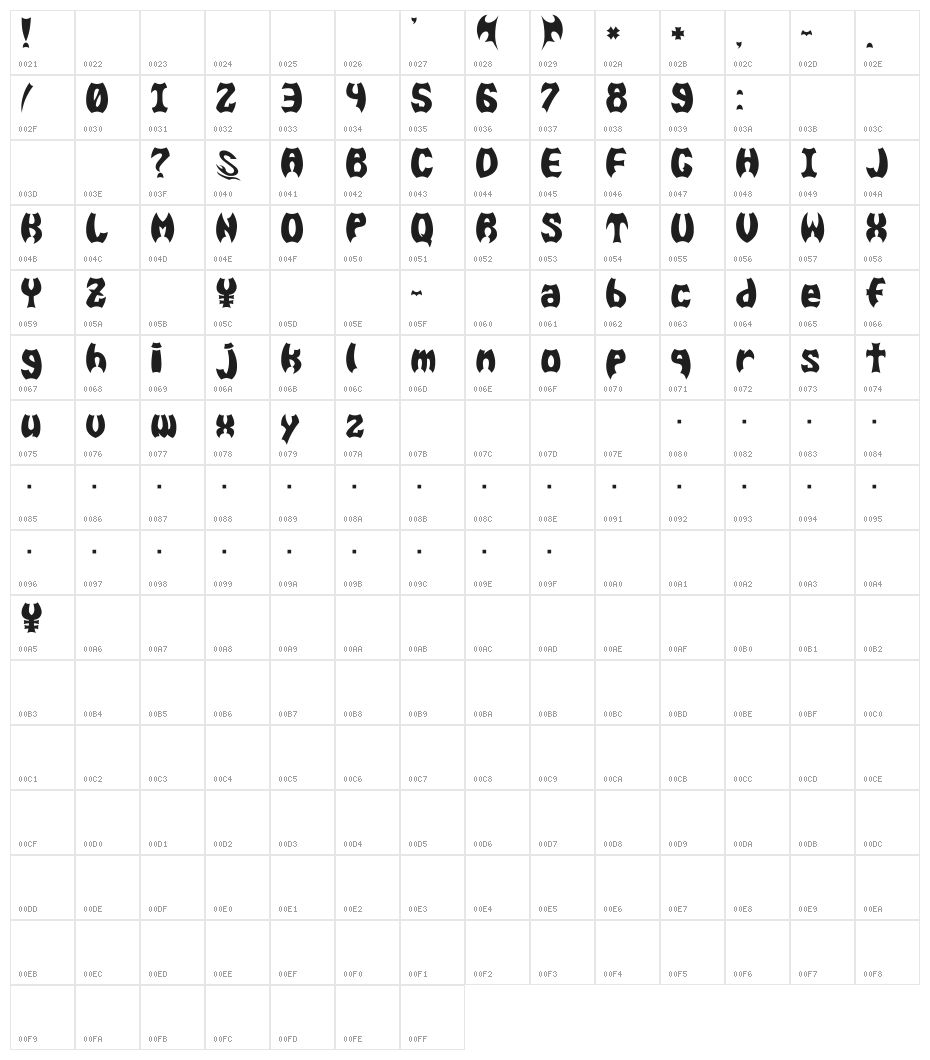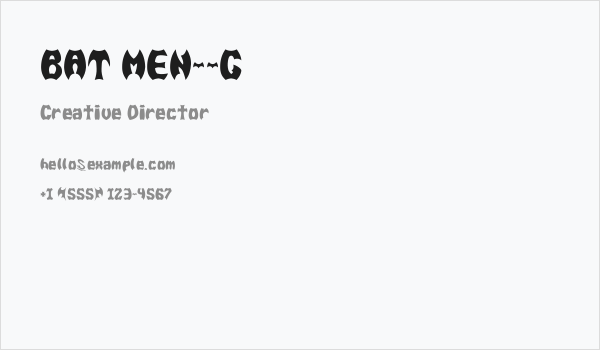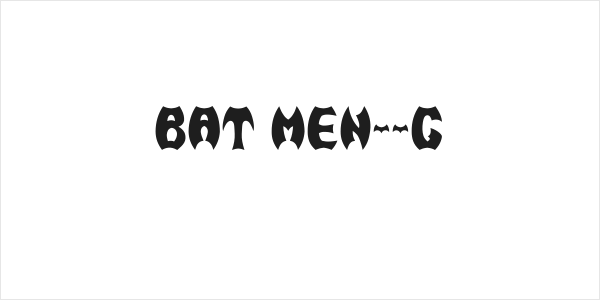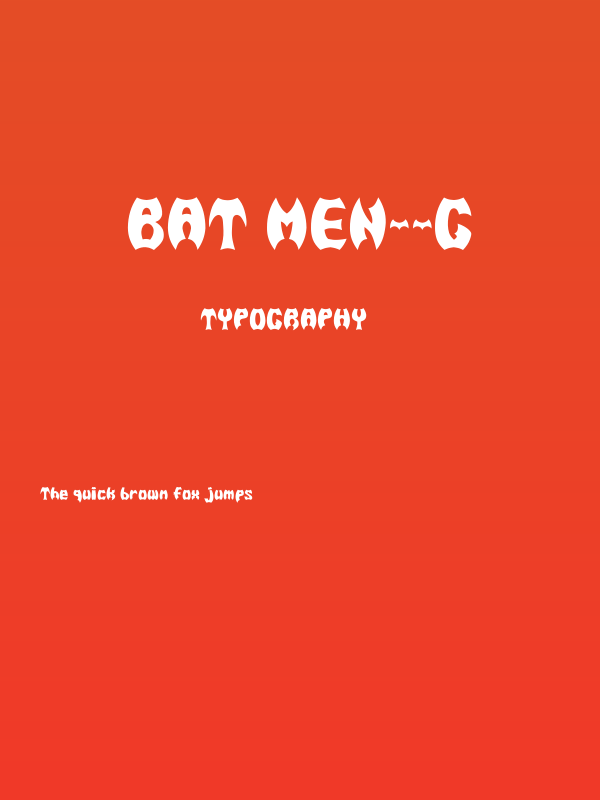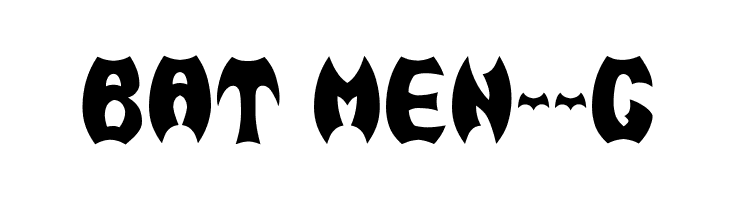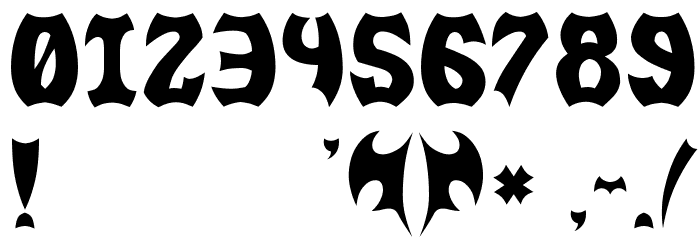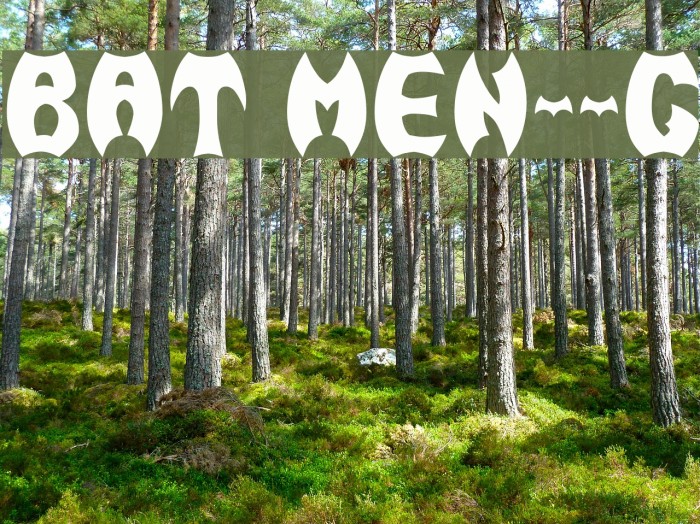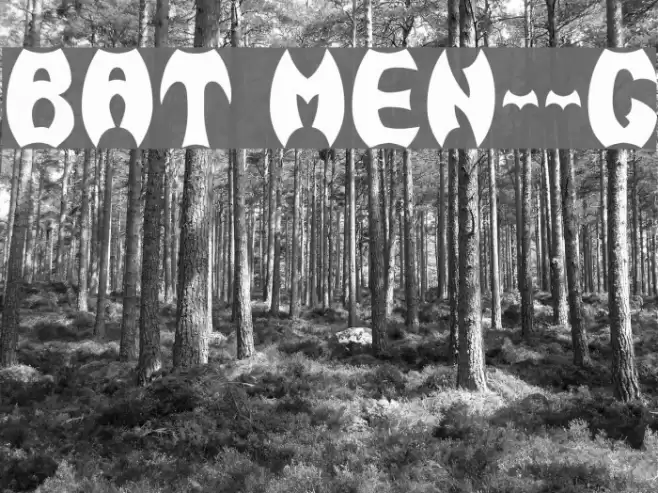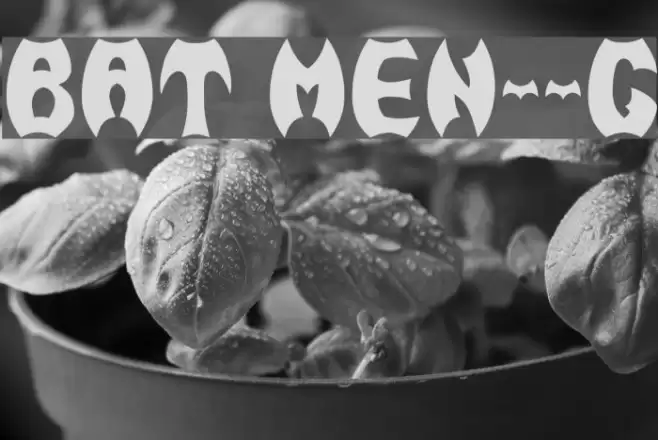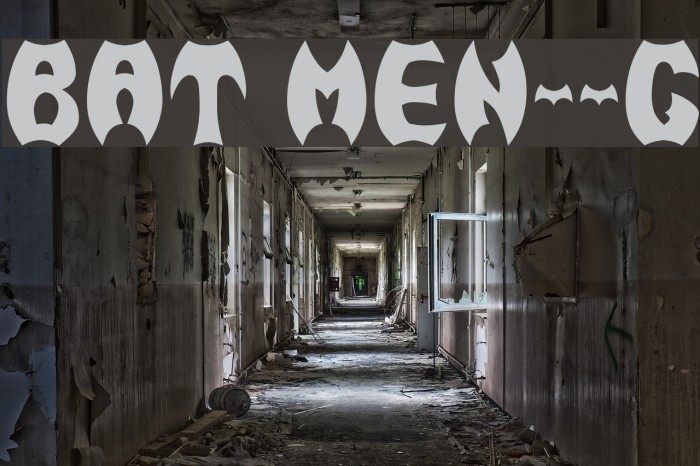
BAT MEN__G Font
| 全体的なスタイル | Gothic, Edgy, Dramatic |
| おすすめプロジェクト | Ideal for Halloween-themed designs, comic book titles, movie posters, and branding for edgy or alternative products. |